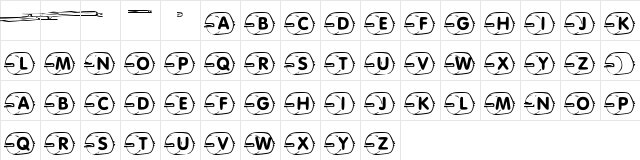
LMS I Want S'Mores Regular
Design Context for LMS I Want S'Mores Typeface
LMS I Want S'Mores is a composed and adaptable typeface that performs quietly and consistently across a wide range of design contexts.
Pro Tip: Use LMS I Want S'Mores in both headline and body roles to test its range before committing to a single application.